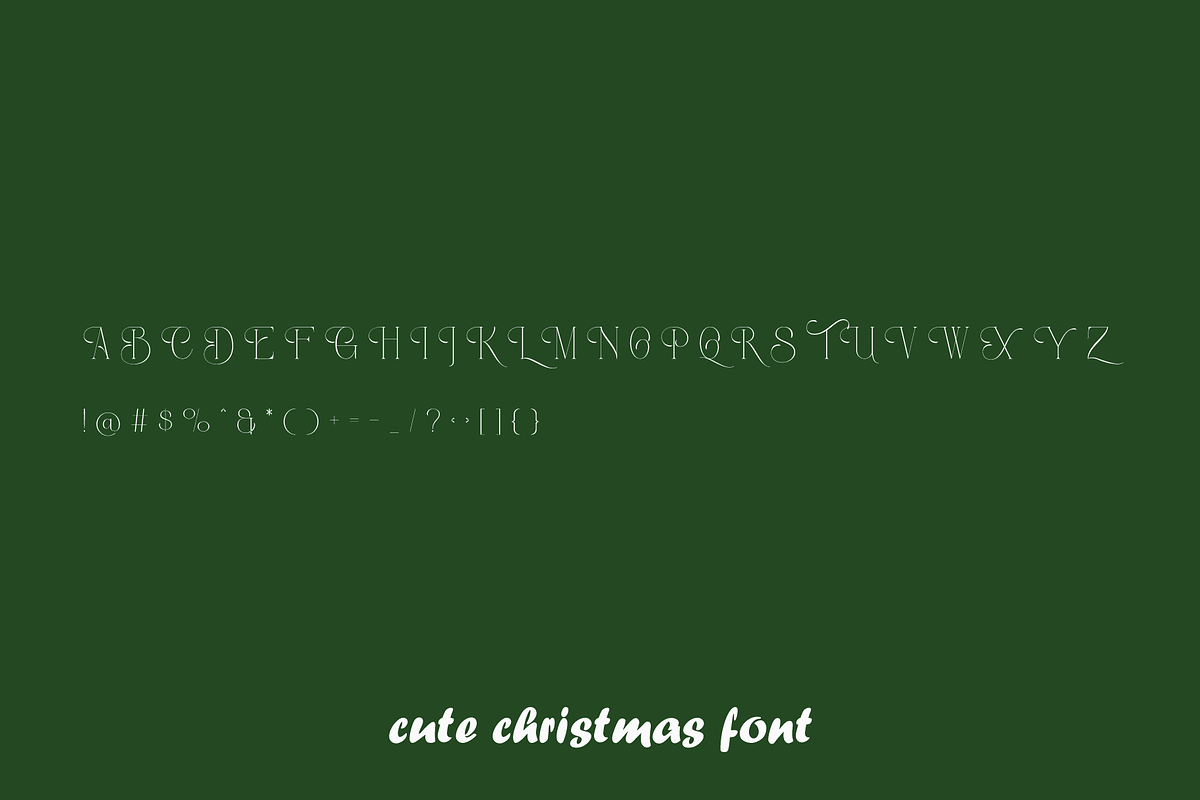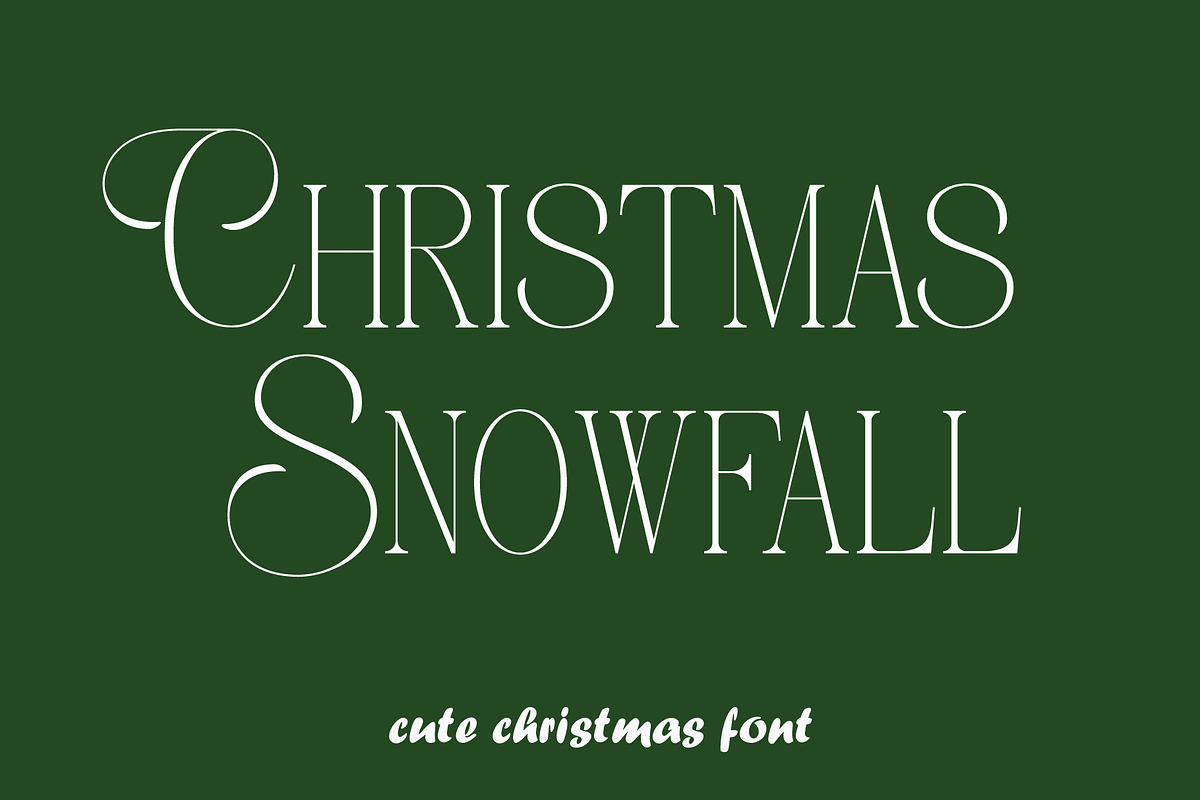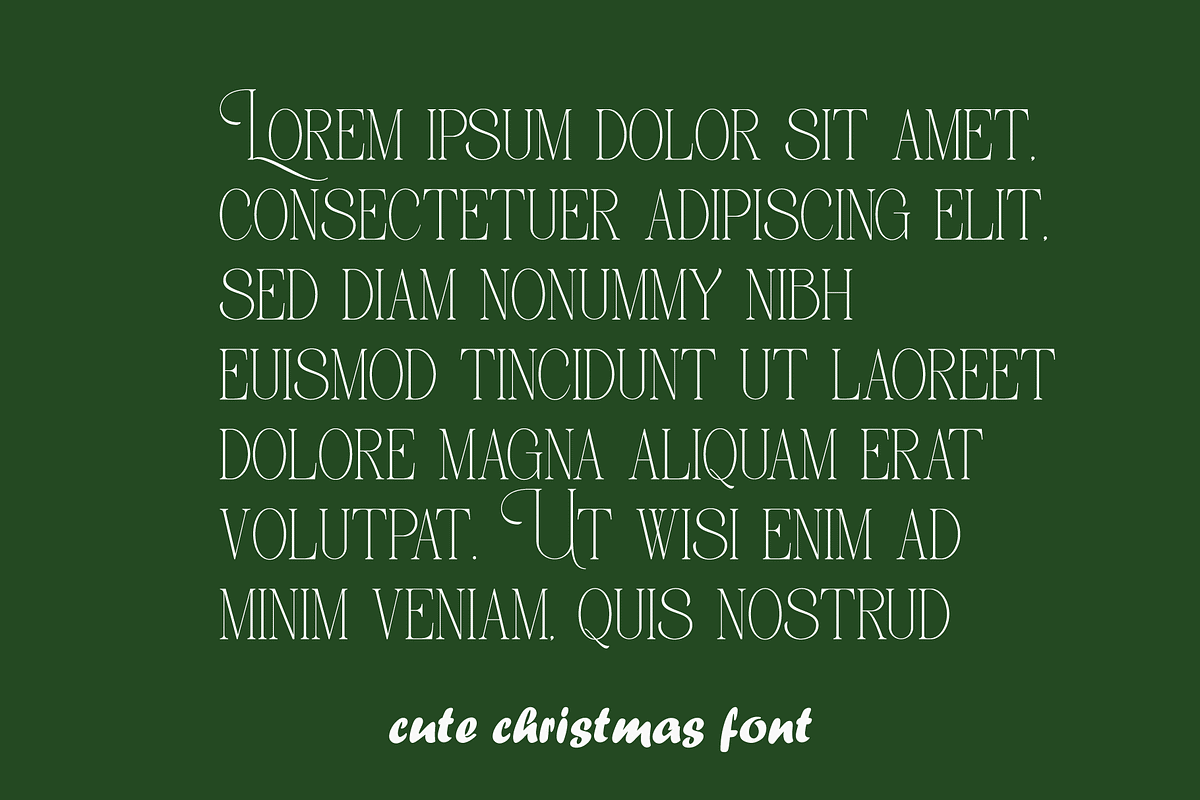
Christmas Snowfall
Christmas Snowfall is a trendy handwritten font with a contemporary atmosphere and impeccable form, inspired by timeless classic calligraphy. It will add elegance and class to any of your design projects.